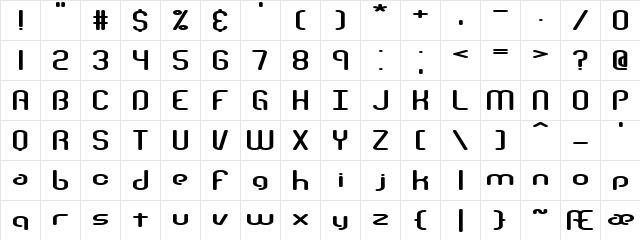
Telephasic BRK Normal
Design Context for Telephasic BRK Typeface
Telephasic BRK offers clean, dependable letterforms without strong stylistic allegiance, making it a practical choice for designers who need flexibility.
Pro Tip: Use Telephasic BRK in both headline and body roles to test its range before committing to a single application.